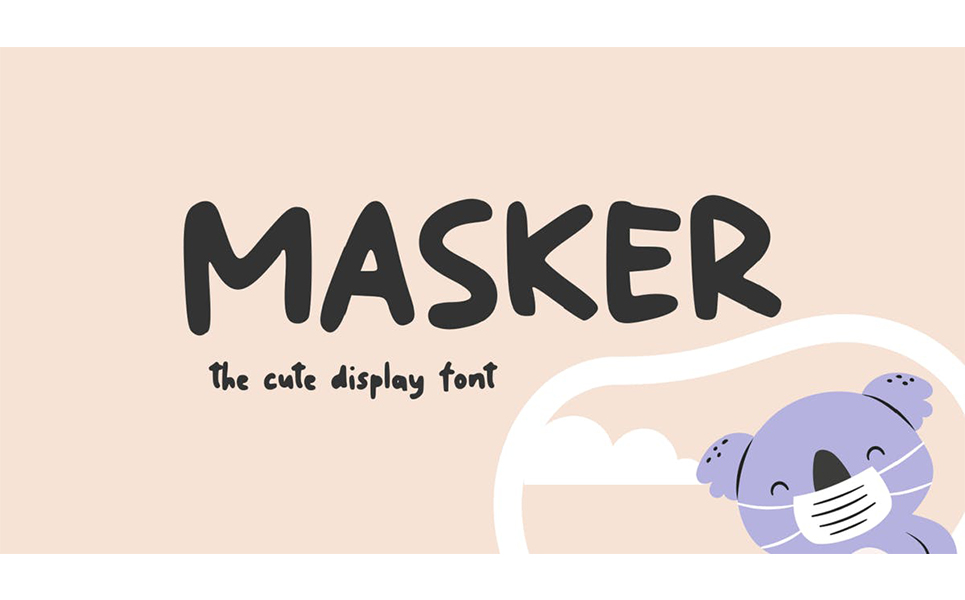
Masker The Cute Display Font - Masker The Cute Display Font
Really excited to introduce Masker The Cute Display Font files and makes this font suitable for your any your project design.